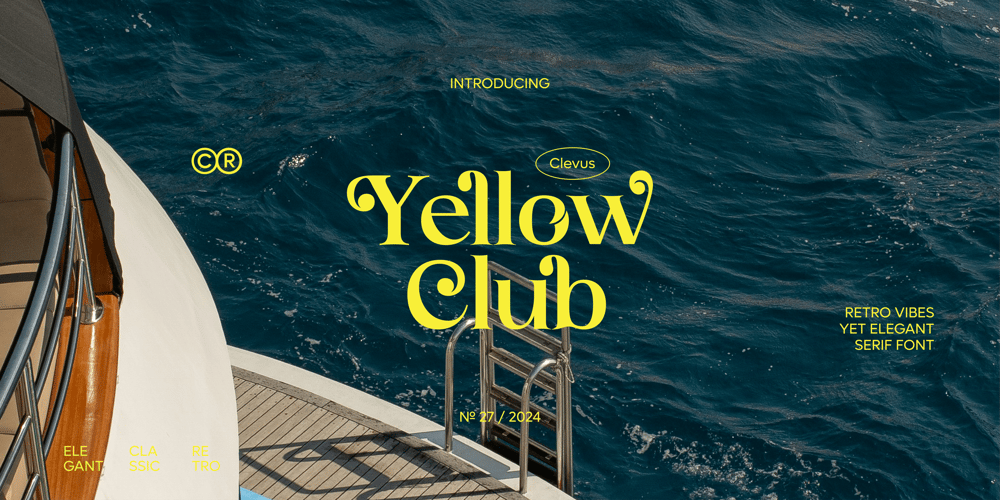
Yellow Club
Yellow Club font
Yellow Club Font Family was designed by Alfinu Zafir and published by Clevus. Yellow Club contains 1 styles and family package options. Proudly present Yellow Club Retro Vibes Yet Elegant Serif Font. Yellow Club equipped with several OpenType. Have 60 unique alternates and ligatures. Comes with alternatives and ligatures, and helps to create stunning logos, quotes, posts, blog posts, branding projects, magazine imagery, wedding invitations, poster and much more.Language Support: Danish, English, Estonian, Filipino, Finnish, French, Friulian, Galician, German, Gusii, Indonesian, Irish, Italian, Luxembourgish, Norwegian Bokmål, Norwegian Nynorsk, Nyankole, Oromo, Portuguese, Romansh, Rombo, Spanish, Swedish, Swiss-German, Uzbek (Latin)Follow My Shop For Upcoming Updates Including Additional Glyphs And Language Support. And Please Message Me If You Want Your Language Included or If There Are Any Features or Glyph Requests, Feel Free to Send me A Message.Get Yellow Club now and let your designs shine!Have a Good Day !